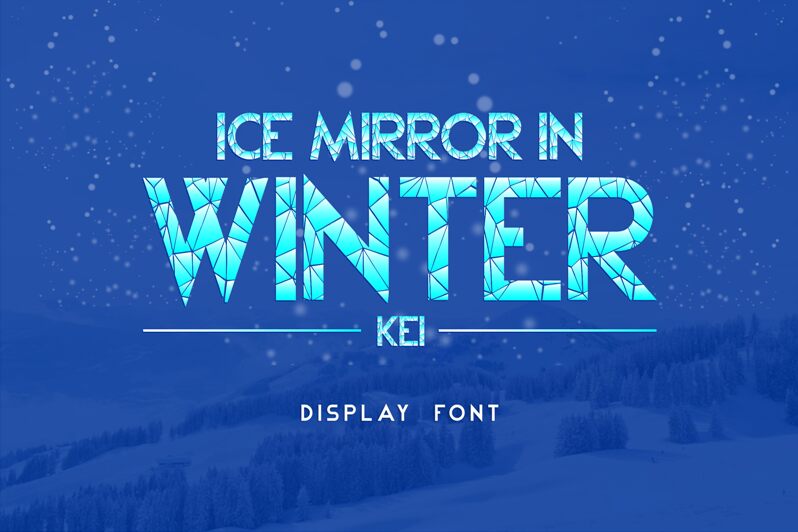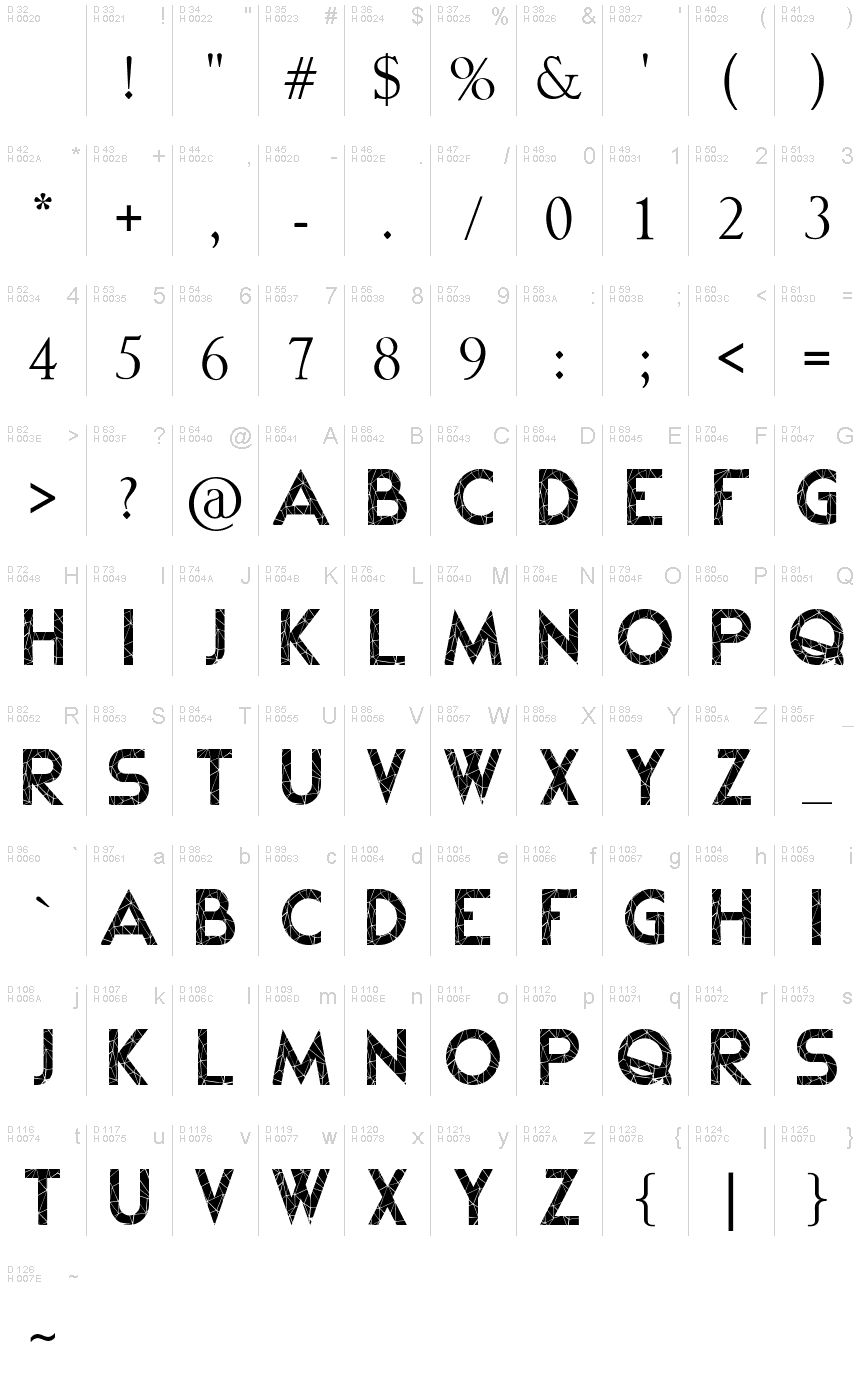
Ice Mirror in Winter Kei
Ice Mirror in Winter Kei Font - a new font look with winter nuances with ice mirror style, perfect for any extraordinary project this winter.